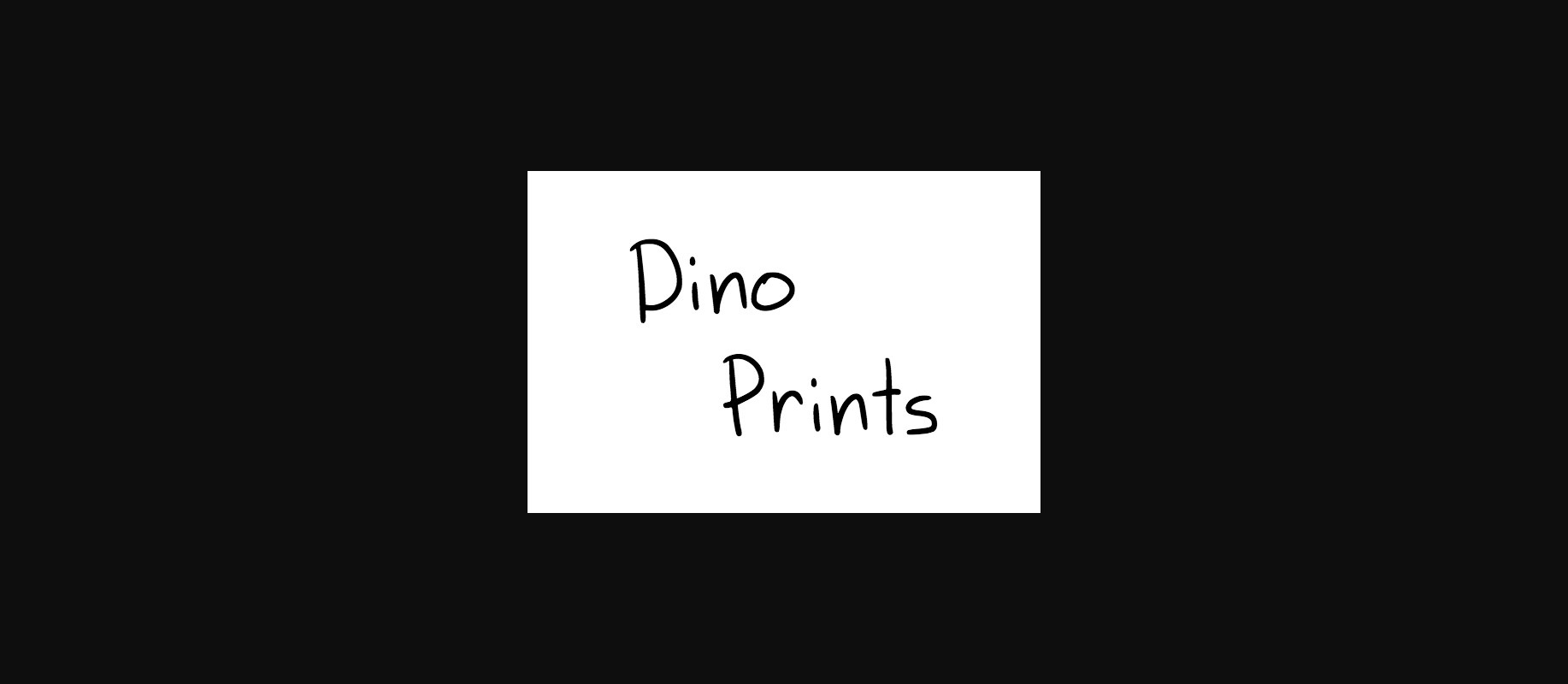
Dino Prints Font
About Dino Prints Font
The Dino Prints is a fun, authentic handwriting-style font. It’s suited for comics and other projects in need of a touch of youthful energy.